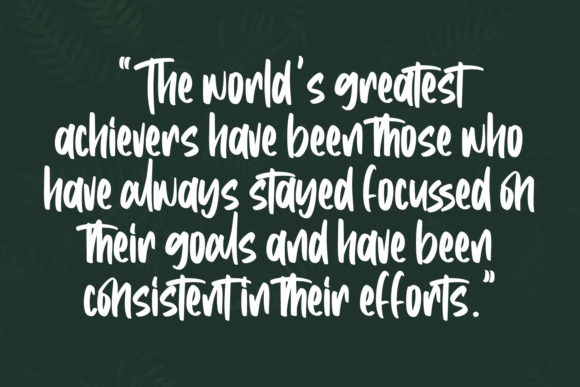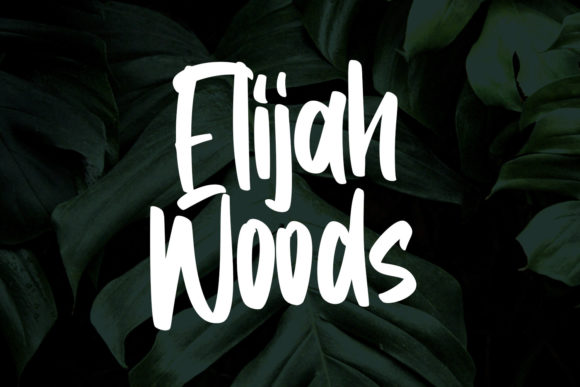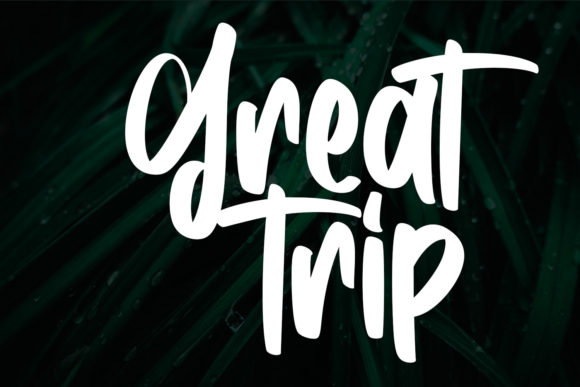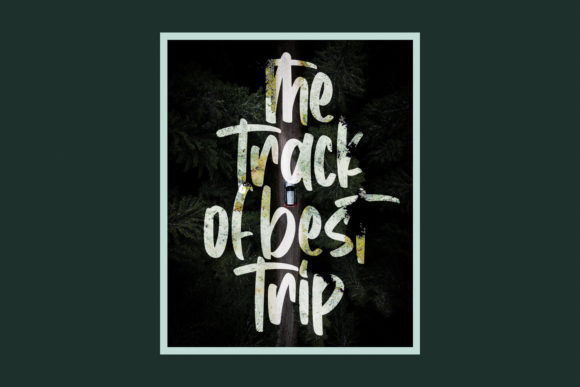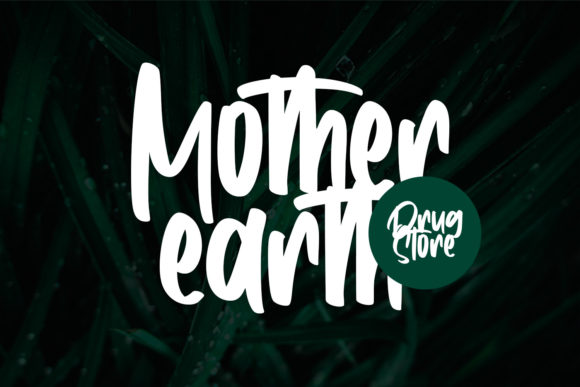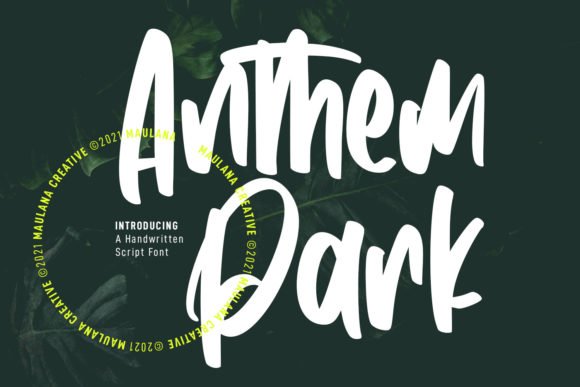
The Perfect Handwritten Touch: Discovering Anthem Park Font
Have you ever found yourself sitting at your desk, staring at a blank sheet of paper, waiting for the perfect font to come to life? Maybe it’s a wedding invitation, a heartfelt thank you note, or a motivational quote that needs a little extra love. Whatever the project, we’ve all been there – searching for that elusive handwritten touch that sets our designs apart.
Enter Anthem Park Font, a quirky and adaptable handwritten font that’s sure to become your new go-to. With its versatility and charm, Anthem Park Font is perfect for everything from wedding invitations and greeting cards to logos and business cards. Whether you’re a seasoned designer or just starting out, this font is a valuable addition to your toolkit.
Anthem Park Font Key Features
- Font Family: Anthem Park
- Unique Characteristics: Anthem Park features a modern, elegant design with a unique blend of geometric and organic elements, making it suitable for various design projects, including logos, branding, and digital interfaces.
- Character Set: Supports a wide range of languages, including Latin, Cyrillic, and Greek alphabets, as well as many special characters and symbols.
Anthem Park Font Review
Overall, I think Anthem Park Font is a solid choice for your next design project. Here’s what I like about it: ✨
- Unique blend of modern and vintage styles, giving it a distinctive look.
- Perfect for projects that need a touch of elegance and sophistication.
- Works well for titles, headings, and body text.
- Available in various font weights and styles, making it easy to customize.
However, I also encountered some limitations: ⚠️
- Some characters may appear slightly irregular or inconsistent.
- Not ideal for body text at smaller font sizes (less than 14px).
- May not be as legible on low-resolution screens or when used in small sizes.
Overall, Anthem Park Font is a stylish and versatile font that can add a touch of sophistication to your designs. While it may have some limitations, it’s still a great choice for projects where you want to make a statement.
Tips for Getting the Most Out of Anthem Park
For the best results, use Anthem Park in combination with bold or italic text to add emphasis and create visual interest.
Use Anthem Park for headings and titles to create a cohesive and professional look.
Anthem Park is ideal for use in:
– Event branding and marketing materials
– Music and entertainment industry projects
– Sports and fitness-related designs
– Any project where a modern and energetic font is desired
Alternatives to Anthem Park Font
Pacifico is a beautiful, cursive font that is perfect for creating a romantic and elegant atmosphere. It’s ideal for wedding invitations, love letters, and other sentimental designs. Pacifico is a more refined and sophisticated alternative to Anthem Park Font, with a more flowing and connected feel.
Great Vibes is a modern, handwritten font that is great for adding a touch of personality to your designs. It’s perfect for creating a fun and playful atmosphere, and is ideal for use in social media graphics, posters, and other promotional materials. Great Vibes is a more casual and relaxed alternative to Anthem Park Font, with a more laid-back feel.
Carolyna Pro is a modern, script font that is perfect for creating a sophisticated and elegant atmosphere. It’s ideal for use in luxury branding, high-end packaging, and other premium designs. Carolyna Pro is a more refined and polished alternative to Anthem Park Font, with a more refined feel.
Playfair Display is an elegant, serif font that is perfect for creating a luxurious and sophisticated atmosphere. It’s ideal for use in high-end branding, luxury packaging, and other premium designs. Playfair Display is a more formal and refined alternative to Anthem Park Font, with a more classic feel.